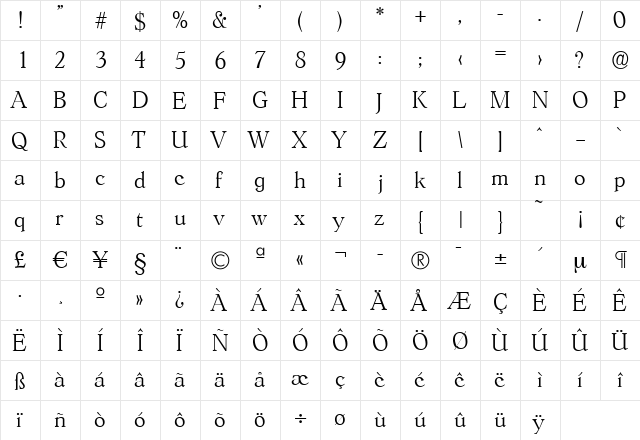
LucasBecker-ExtraLight Regular
Design Context for LucasBecker-ExtraLight Typeface
LucasBecker-ExtraLight takes a measured approach to typography — its balanced proportions and neutral character make it a reliable workhorse for both digital and print work. Its slender proportions lend an understated elegance to any composition.